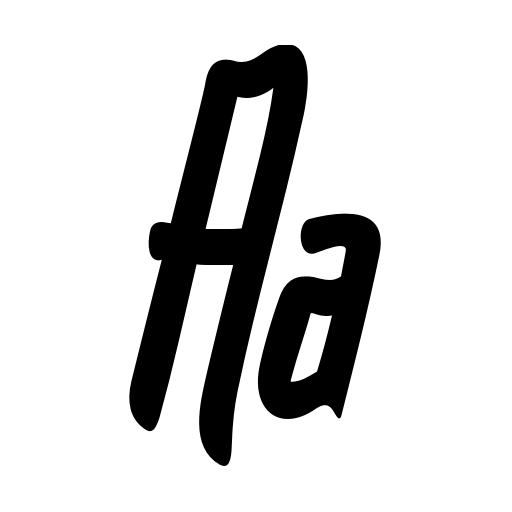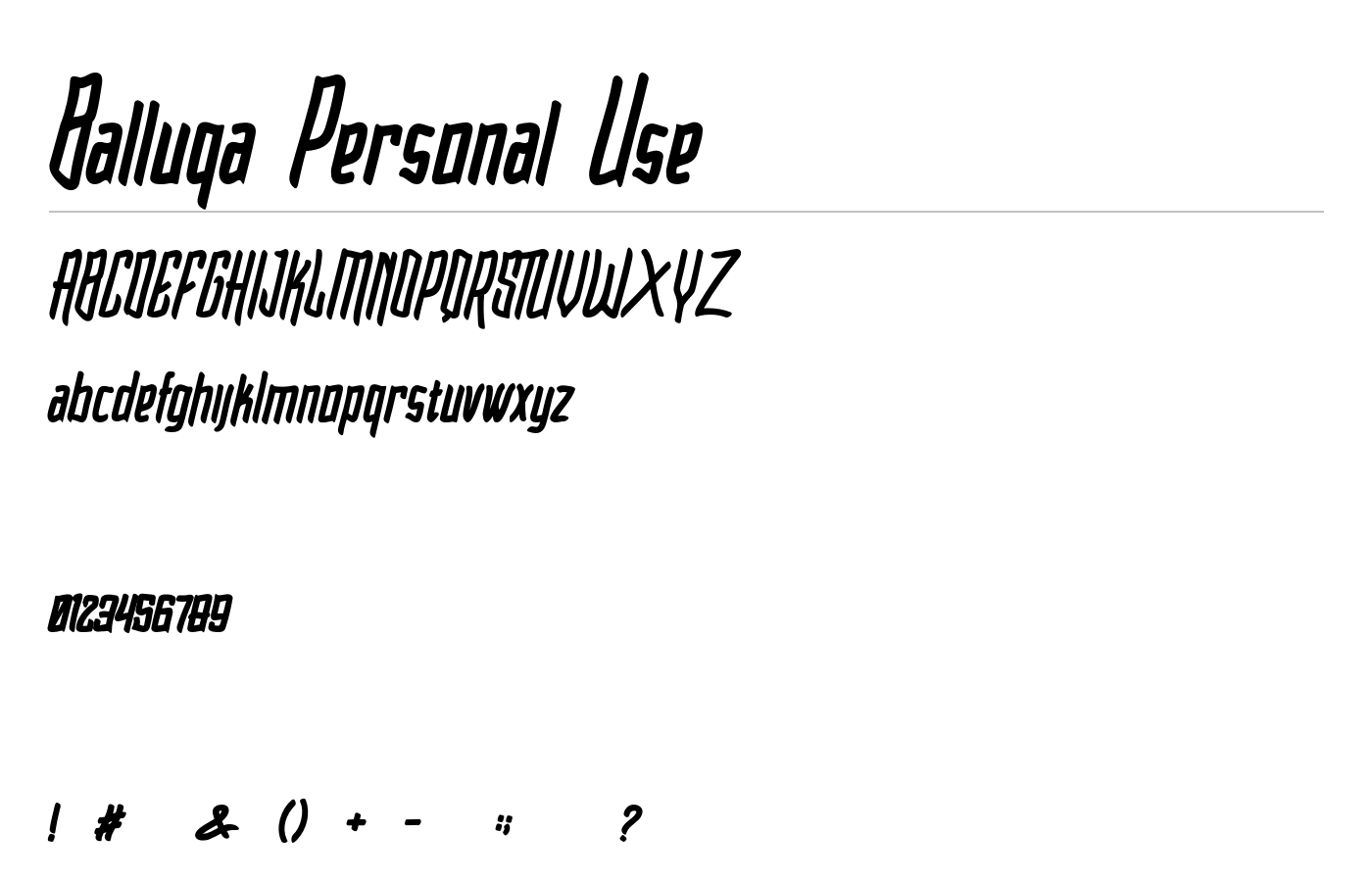
Balluqa Personal Use is a distinctive sans serif font with a condensed, slightly slanted style that gives it a dynamic, energetic feel. Its tall, narrow letterforms paired with irregular, hand-drawn strokes create a modern yet playful personality, making it perfect for eye-catching headlines, posters, or creative branding that seeks a unique and informal touch. This font works well where you want to stand out with a bold, artistic look that balances readability with expressive character.
Balluqa Personal Use Font
About Balluqa Personal Use Font